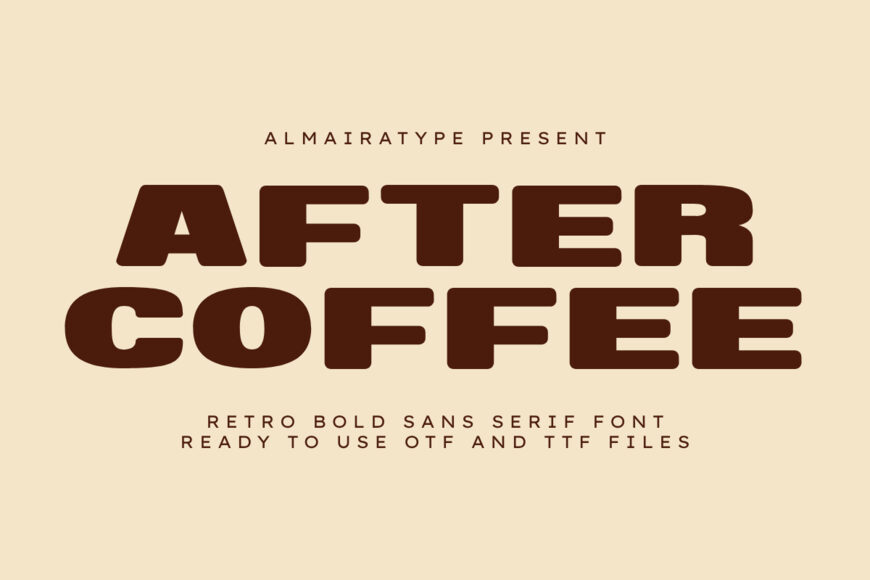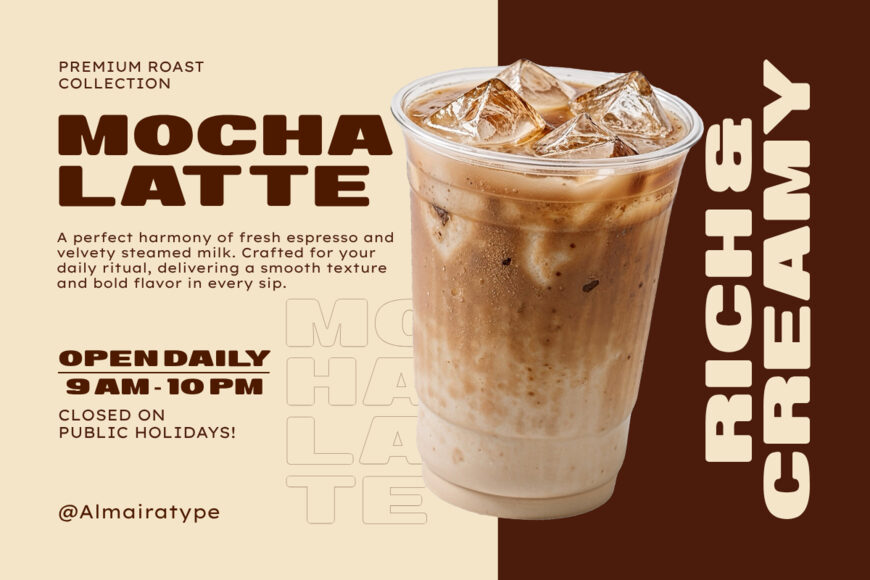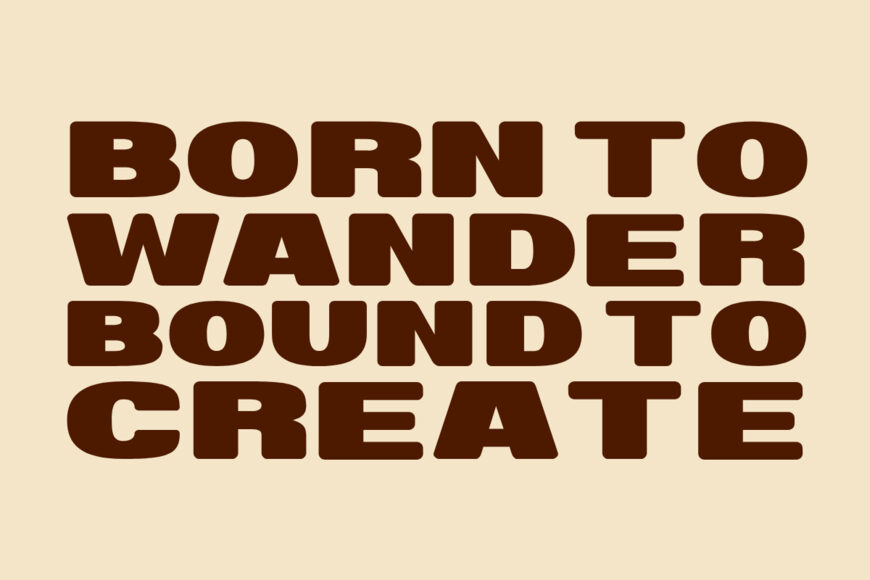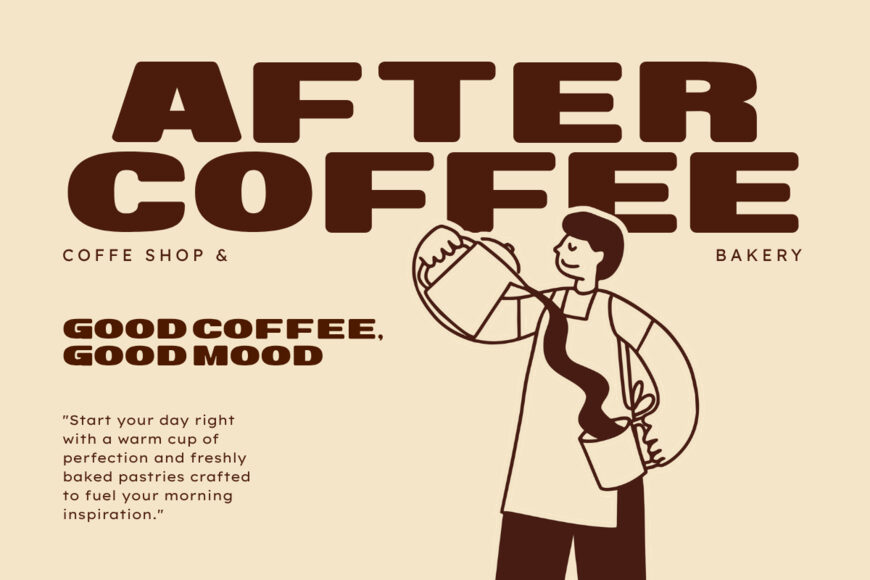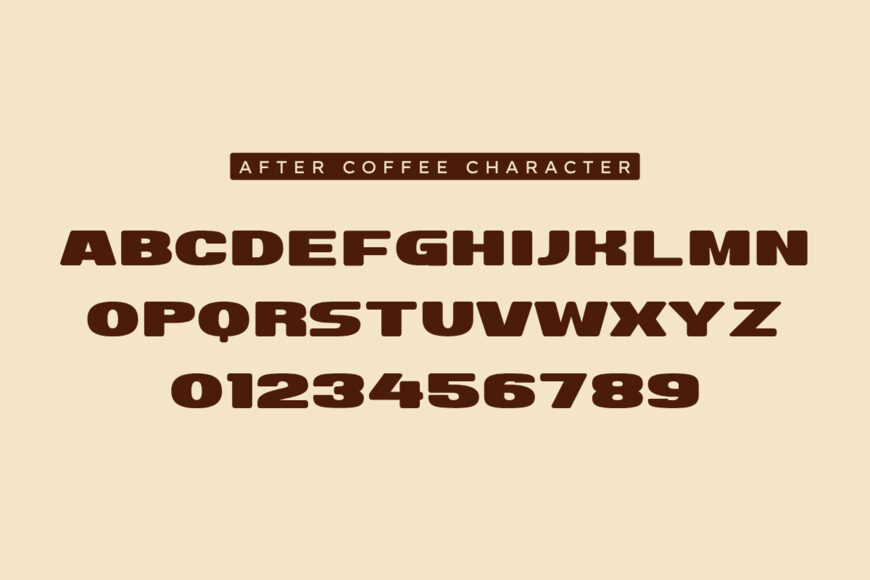
After Coffee Font
Make a bold, commanding, and delightfully nostalgic statement with After Coffee, an ultra-bold retro extended sans serif font engineered for creators who want their headlines to pop with a solid, confident charm.
Meticulously structured with a massive display weight, wide blocky baselines, and softly rounded corners, this versatile font brings an instant blend of vintage cafe warmth and clean modern urban professionalism to any creative canvas.